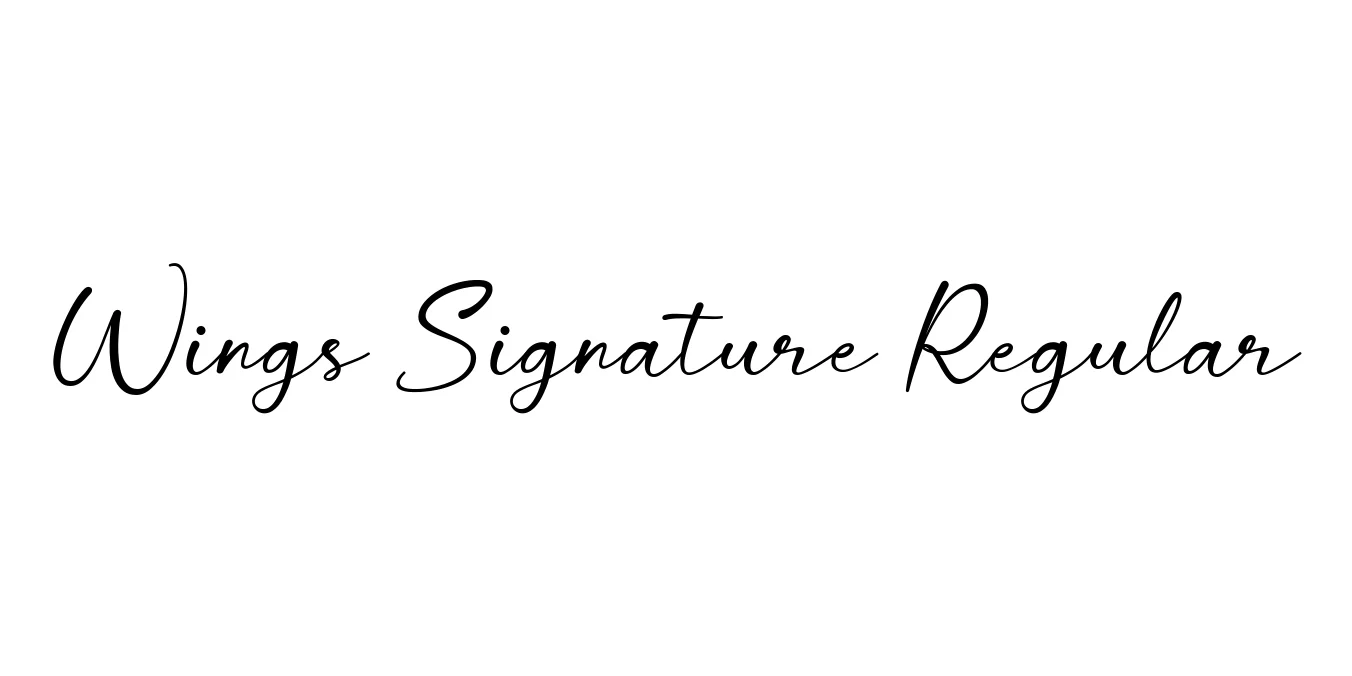
Wings Signature Regular
Wings Signature Regular is an exquisite handwriting font meticulously crafted by Letterena Studios. This typeface captures the fluid motion and elegance of natural penmanship, featuring graceful strokes and sophisticated ligatures that lend an authentic, personalized feel to any design project. It is often celebrated for its ability to mimic high-end calligraphy with a modern, digital twist.
Designed with versatility in mind, this signature font excels in high-end branding and editorial design. It offers a perfect balance between legibility and artistic flair, making it a favorite for designers seeking a human touch in digital typography for luxury goods, creative identity projects, and stylized invitation suites.
Wings Signature Regular Best Uses
Perfect for luxury branding and high-end corporate identities.
Ideal for aesthetic Instagram posts, story overlays, and creative content.
Adds a personal, handwritten touch to invitations and RSVP cards.
Great for photographers wanting a stylish and professional signature on their portfolio.